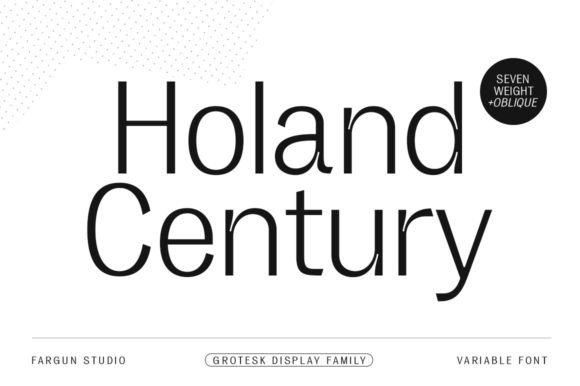
In a world saturated with digital content, capturing attention and leaving a lasting impression has become paramount. Your YouTube banner serves as a gateway to your channel, a visual invitation that entices viewers to explore your creative realm. Introducing Holand Century, the font family meticulously crafted to elevate your YouTube presence, transforming it into an aesthetic masterpiece.
Beyond its captivating appearance, Holand Century offers a seamless user experience. Its clean lines and legible characters ensure effortless readability, even on smaller screens. Whether you're crafting captivating video titles, designing eye-catching thumbnails, or composing informative descriptions, Holand Century's versatility shines through, enabling you to communicate your message with clarity and impact.
This versatile font family not only enhances the visual appeal of your YouTube channel but also empowers you to establish a cohesive brand identity. With its extensive range of styles, from light and airy to bold and commanding, Holand Century allows you to tailor your designs to suit your unique style and project requirements. Create a harmonious visual symphony that reflects your brand's essence and resonates with your target audience.
Harness the power of Holand Century to craft YouTube banners that captivate, inform, and inspire. Its modern sans-serif design exudes a timeless elegance that transcends fleeting trends, ensuring your channel remains visually appealing for years to come. Join the ranks of successful YouTube creators who have embraced Holand Century to elevate their channels to new heights.